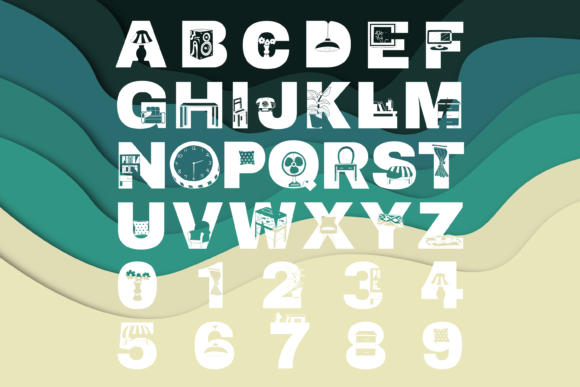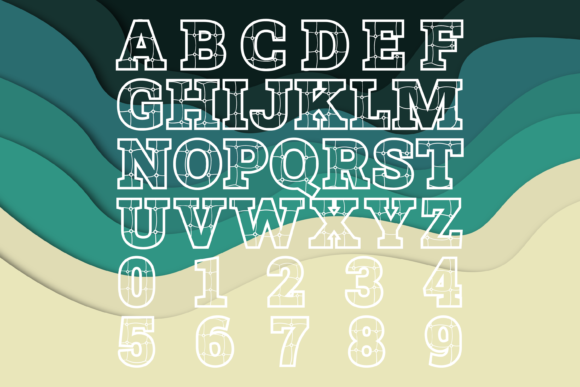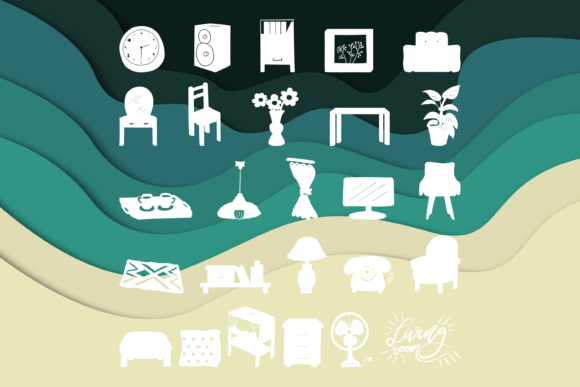
For designers looking to add a friendly touch to their work, the Chillout Lounge Font is a game-changer. This unique duo font combines decorative and dingbats elements, making it perfect for cartoon-related designs, children’s games, and more. With Chillout Lounge Font, you can add a playful and approachable feel to your creations, setting them apart from the rest. Whether you’re a seasoned pro or just starting out, this versatile font is an invaluable addition to any designer’s toolkit.
Key Features of Chillout Lounge Font
- Font Size: The font family includes multiple weights, ranging from Thin to Extra Bold, providing a wide range of design options.
- Unique Characteristics: The font features a distinctive, relaxing aesthetic with rounded shapes and subtle texture, evoking a sense of calmness and serenity.
- Kerning and Ligatures: The font includes carefully crafted kerning and ligatures, ensuring smooth text flow and optimal readability.
Designer Review: Chillout Lounge Font
Overall, I’d say the Chillout Lounge Font is a solid addition to any designer’s toolkit, but with some caveats. Let’s dive in.
- Relaxed, laid-back vibe: This font does exactly what it says on the tin – it’s perfect for creating a chill atmosphere.
- Highly legible: Even at smaller sizes, the font remains easy to read, making it suitable for a range of applications.
- Good for creative projects: The unique design and subtle flair make it a great choice for anything from music festivals to wellness retreats.
- Not ideal for formal or corporate work: While the font is great for creative projects, it may come across as too casual for more formal applications.
- Limited font weight options: While the font is available in multiple weights, the range is relatively limited, which may restrict its use in certain situations.
- Not suitable for body text at very large sizes: While legible at smaller sizes, the font may become too loose or uneven at very large sizes.
Overall, I’d give the Chillout Lounge Font 3.5 out of 5 stars. While it’s a great addition to any designer’s toolkit, its limitations may restrict its use in certain situations. However, for the right project, it’s a great choice for creating a relaxed, laid-back vibe.
Practical Application Guide: Chillout Lounge Font
Getting the Most Out of Chillout Lounge Font
For the best results, use Chillout Lounge Font in contexts where you want to convey a relaxed, laid-back atmosphere.
- Use it in promotional materials for wellness, spa, or yoga businesses.
- Apply it to music-related projects, such as album art or concert posters.
- Utilize it in travel or adventure-themed projects to evoke a sense of calm and freedom.
Alternatives to Chillout Lounge Font
Great Vibes is a modern, elegant script font that is perfect for creating a relaxed and sophisticated atmosphere. It’s ideal for use in branding, advertising, and packaging designs. Compared to Chillout Lounge Font, Great Vibes has a more refined and polished look, making it suitable for a wider range of applications.
Alex Brush is a handwritten font that exudes a sense of calmness and serenity. It’s perfect for use in designs that require a touch of warmth and personality. Compared to Chillout Lounge Font, Alex Brush has a more organic and hand-drawn feel, making it ideal for creating unique and memorable designs.